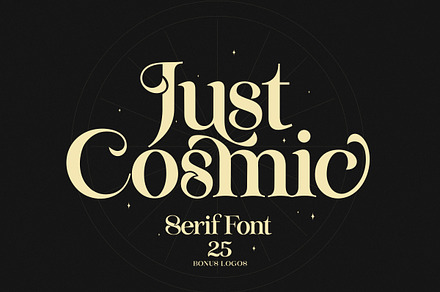
Just Cosmic Font + Logos
A display font supplied with a set of pre-built logo designs that use it, showing the typeface applied rather than only specified.
Seeing a face in a finished lockup communicates its potential far better than a character sheet, which shows the letters but not the possibilities.
Put it to work on
• Logo and brand identity
• Packaging and label design
• Social and merch graphics
• Print and signage